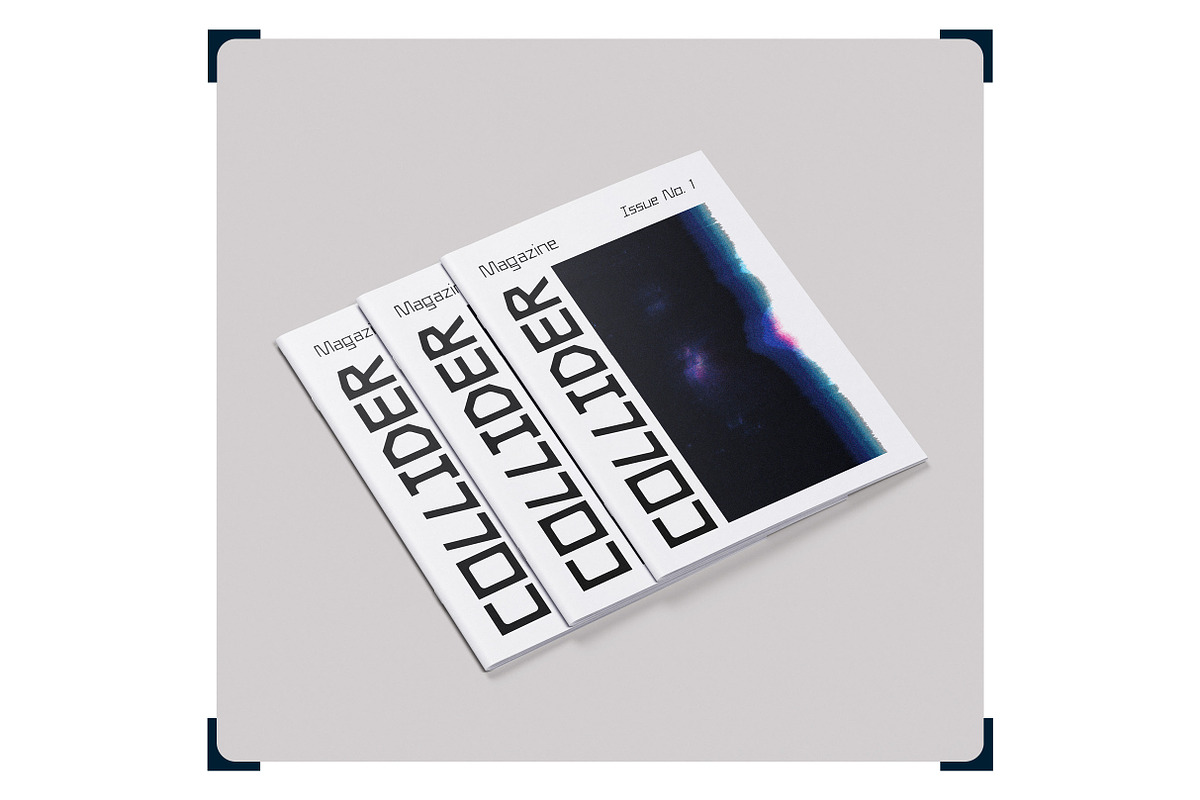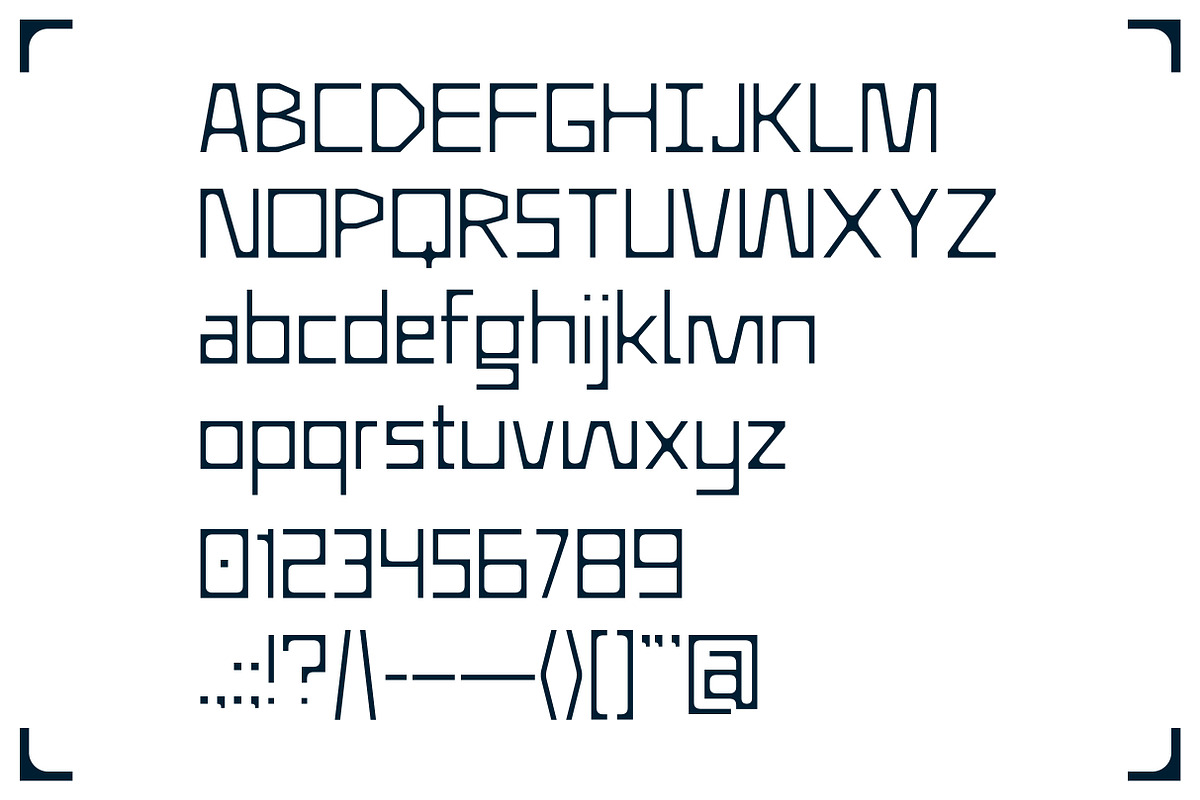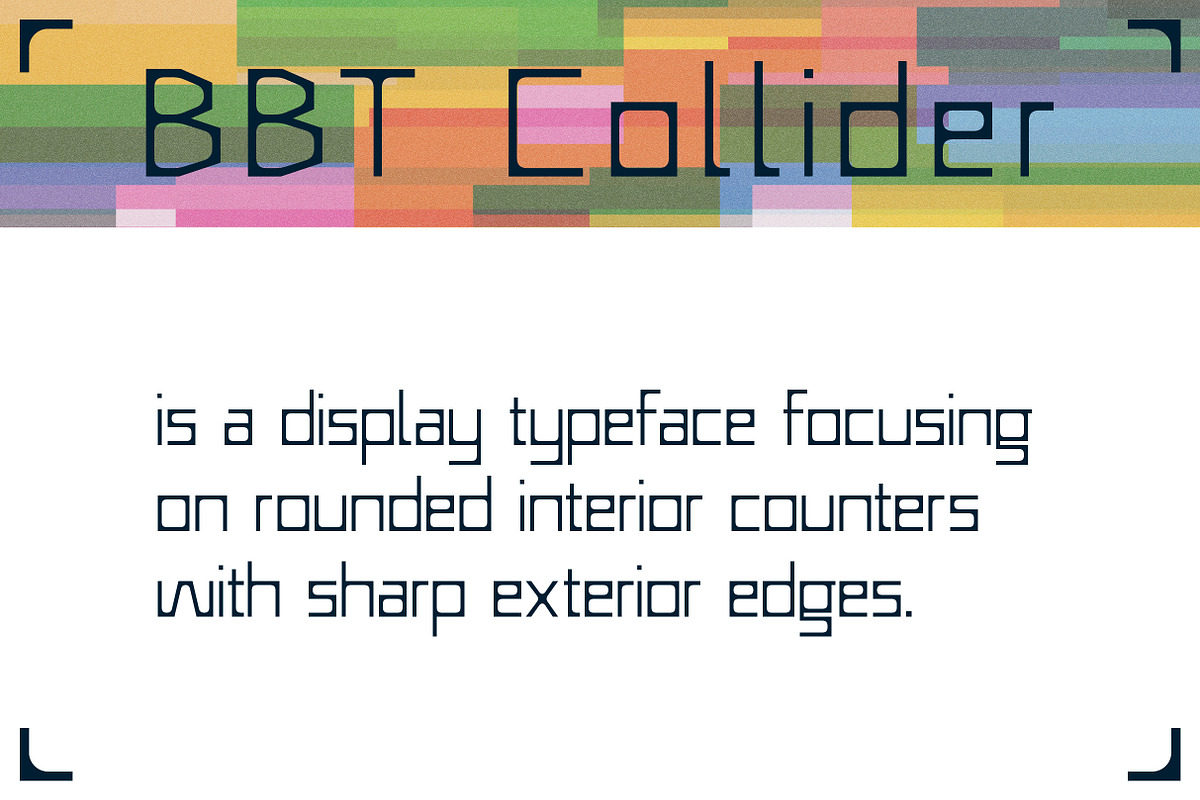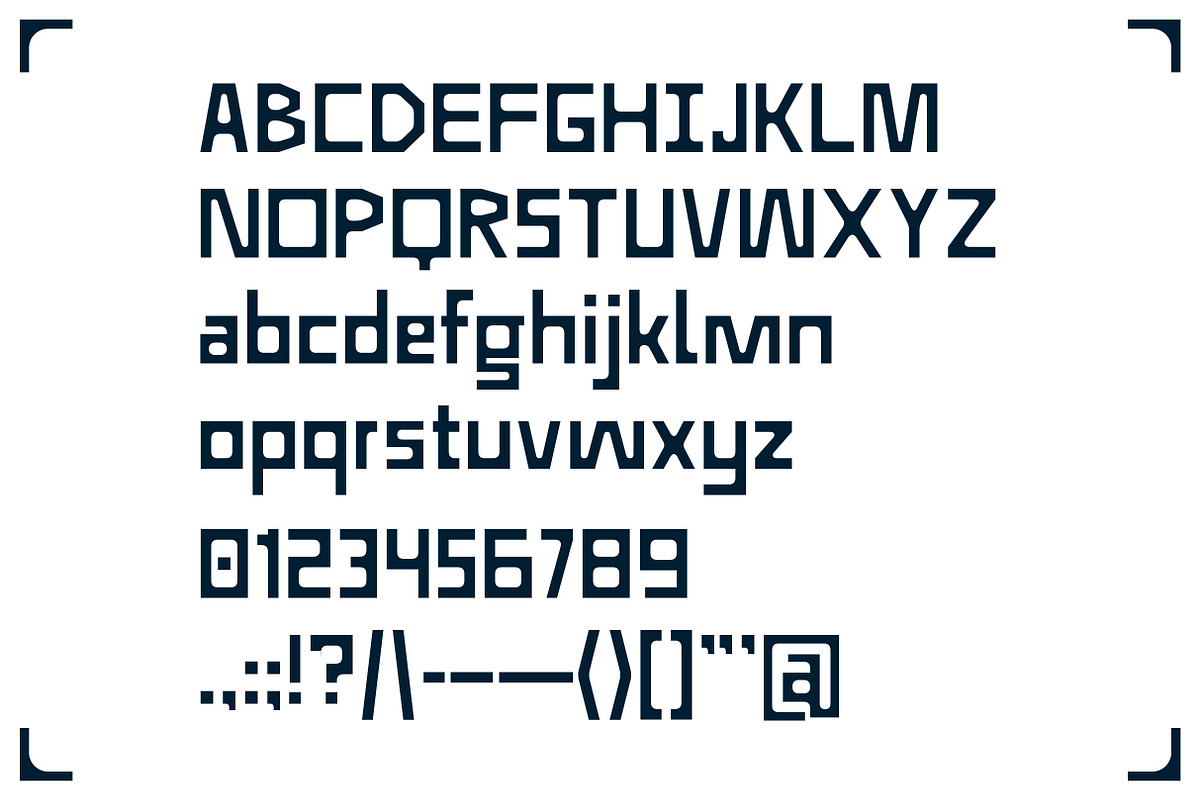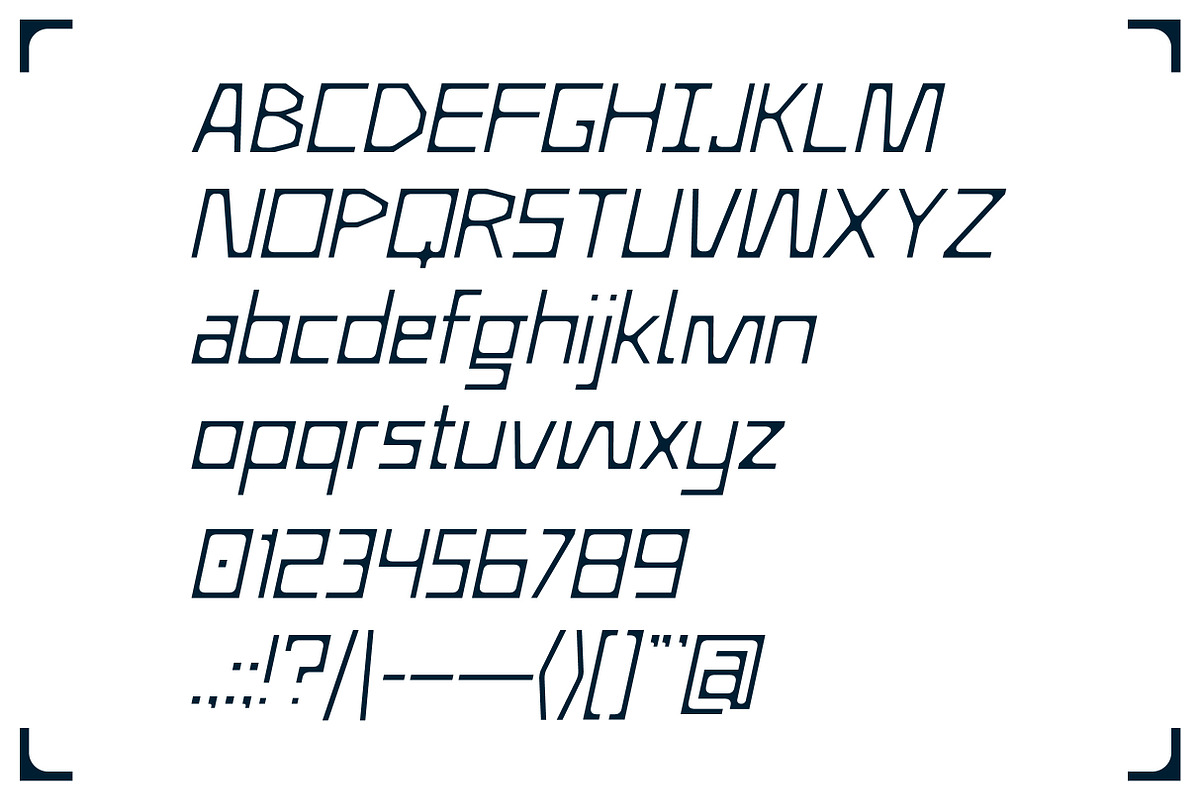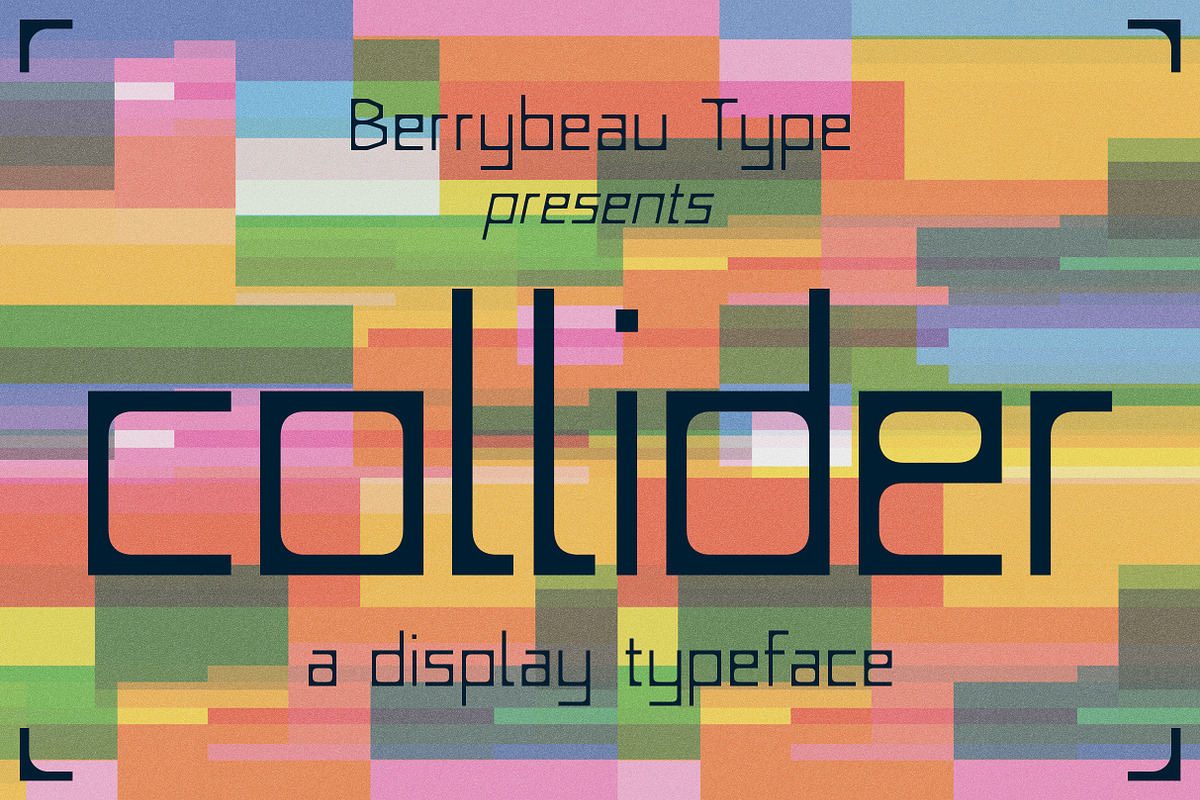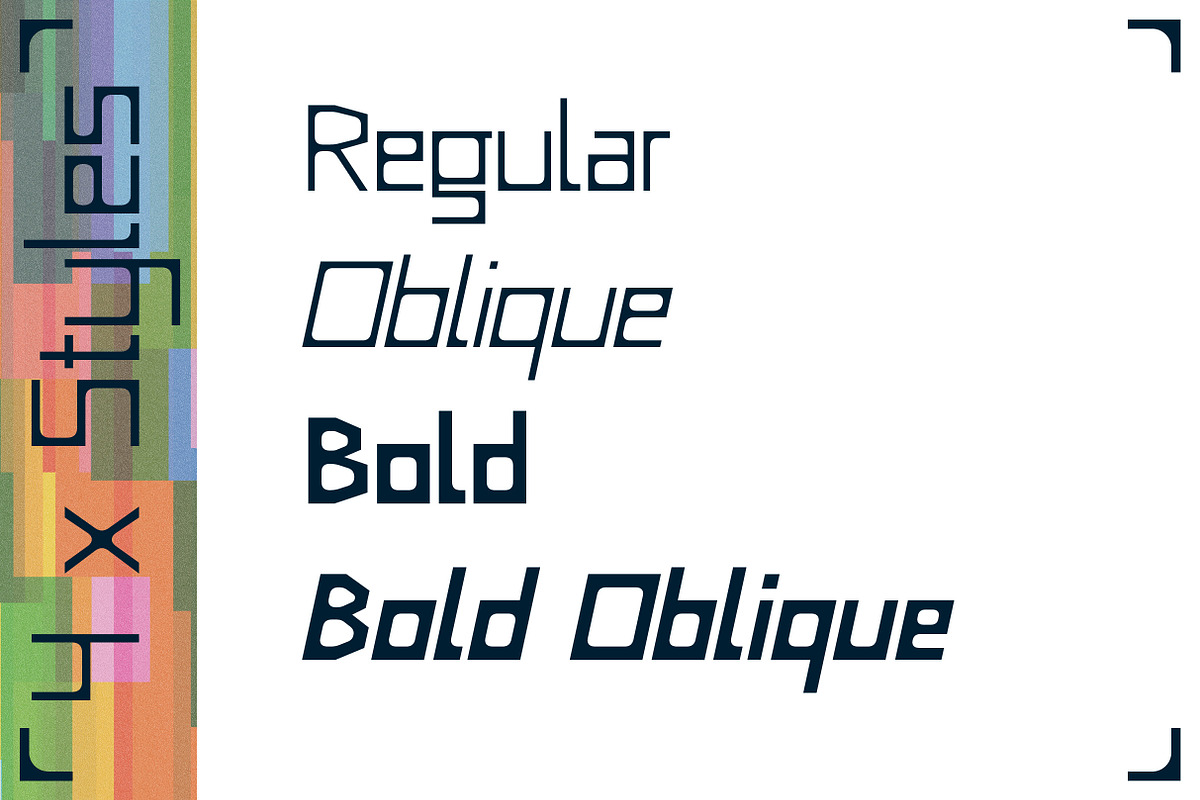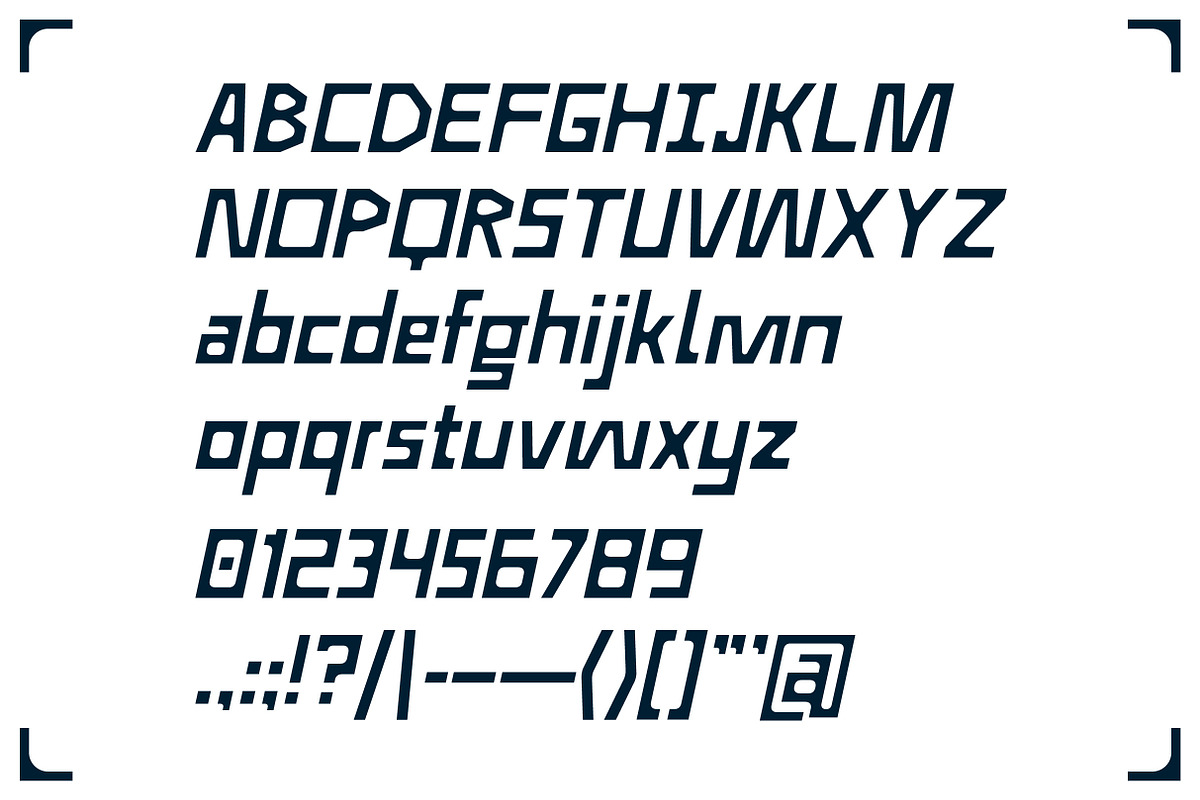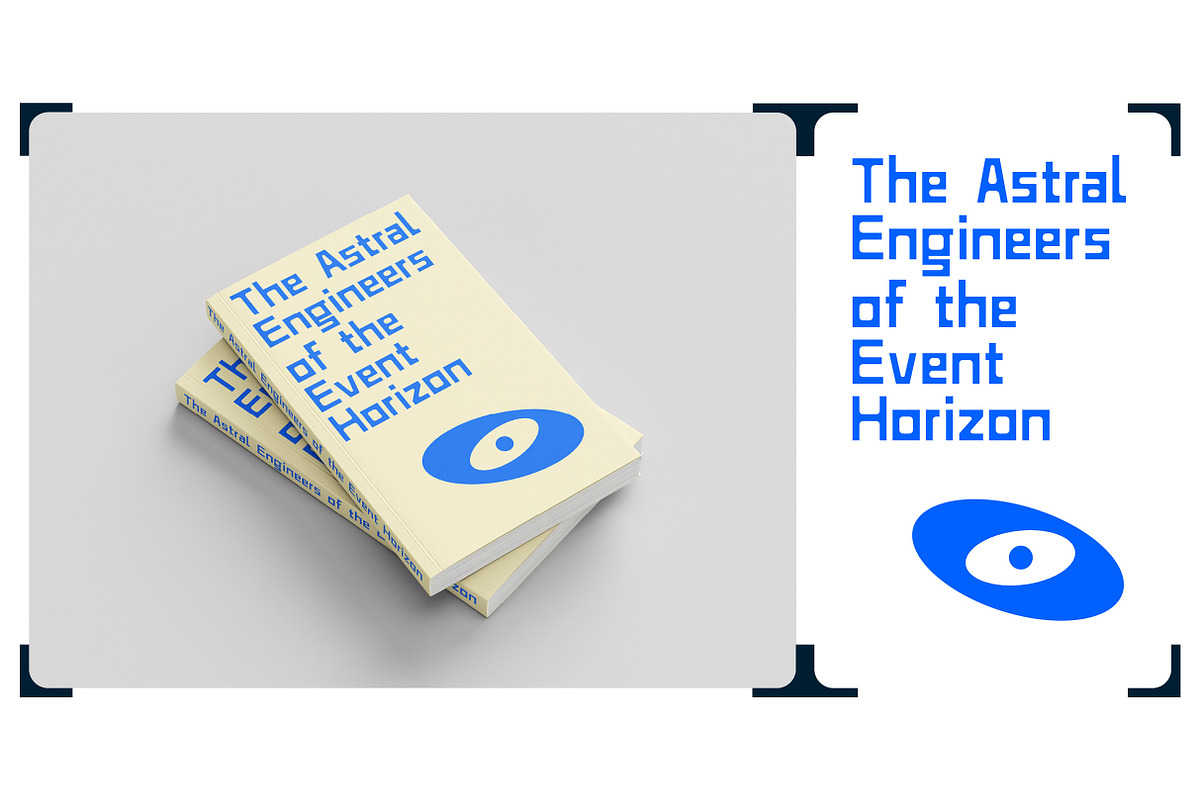
BBT Collider - Display Sans Serif
BBT Collider is a display sans serif typeface. It's design was focused on the simple rules of rounded interior counters contrasted with sharp exterior edges. There are 4 x styles within the BBT Collider font family, those being:
- Oblique
- Bold
- Bold Oblique